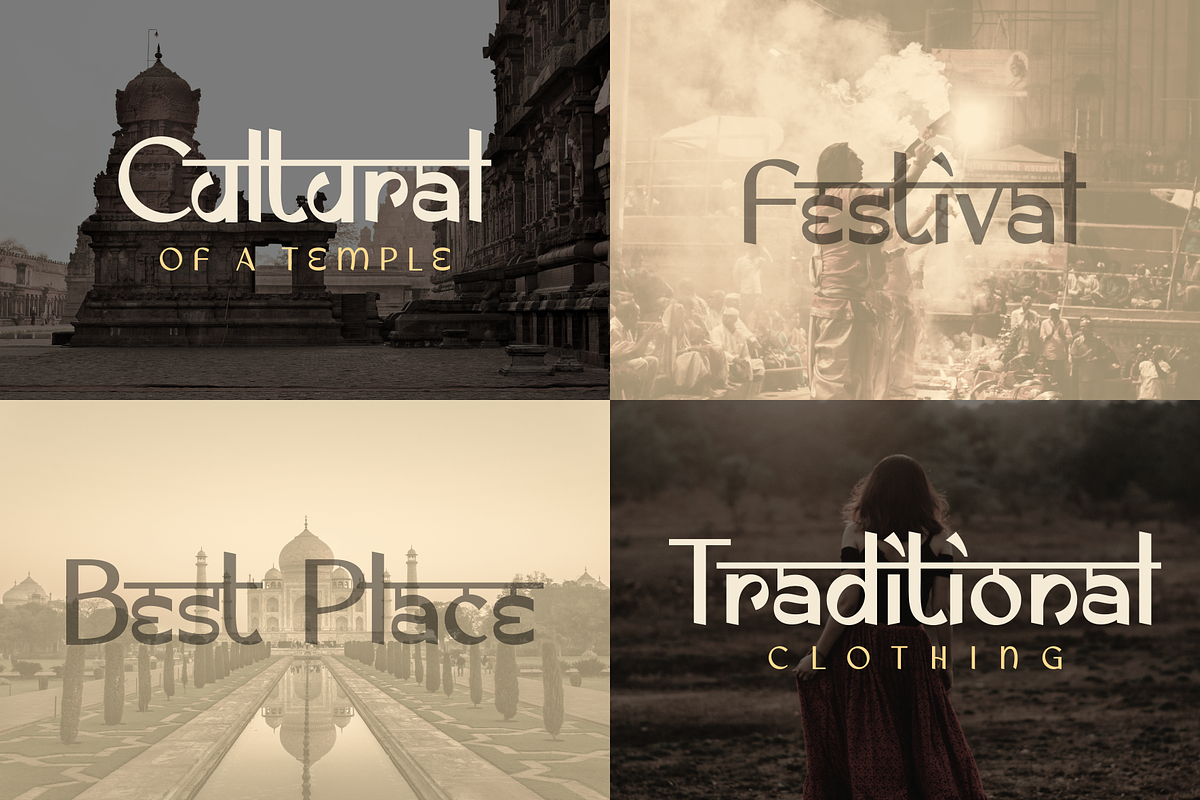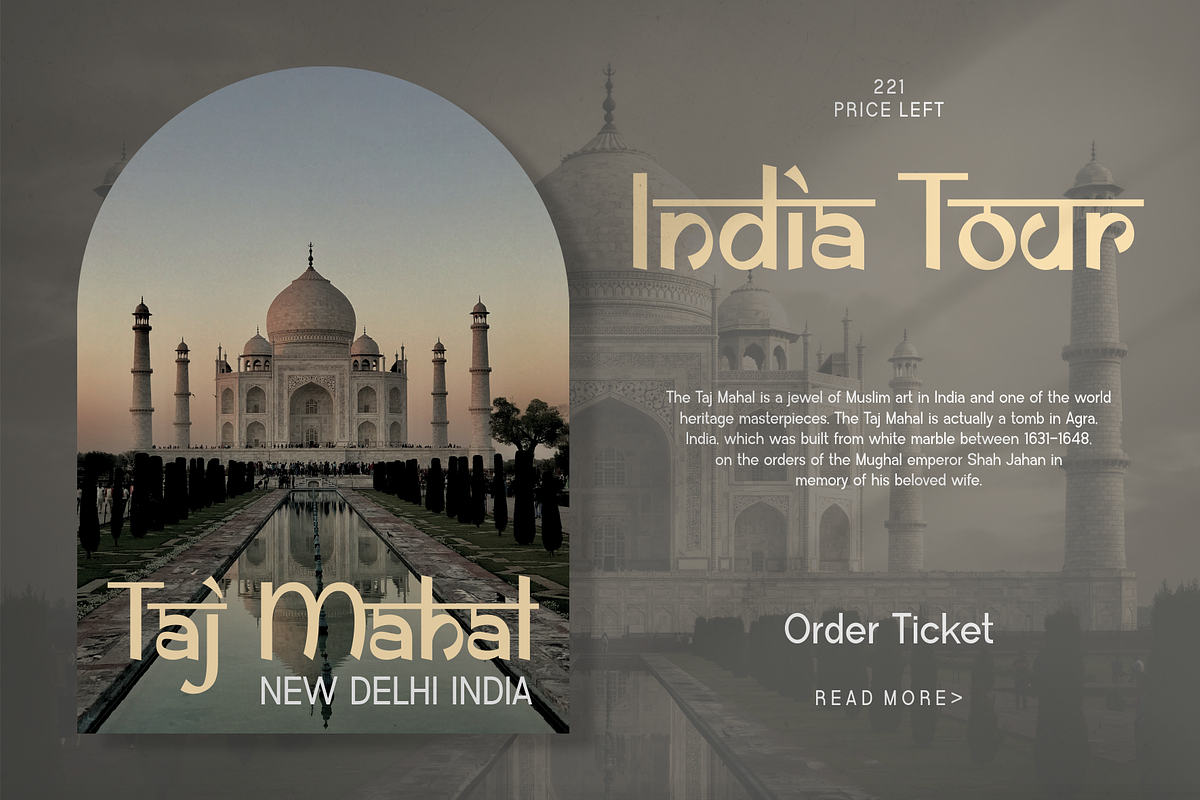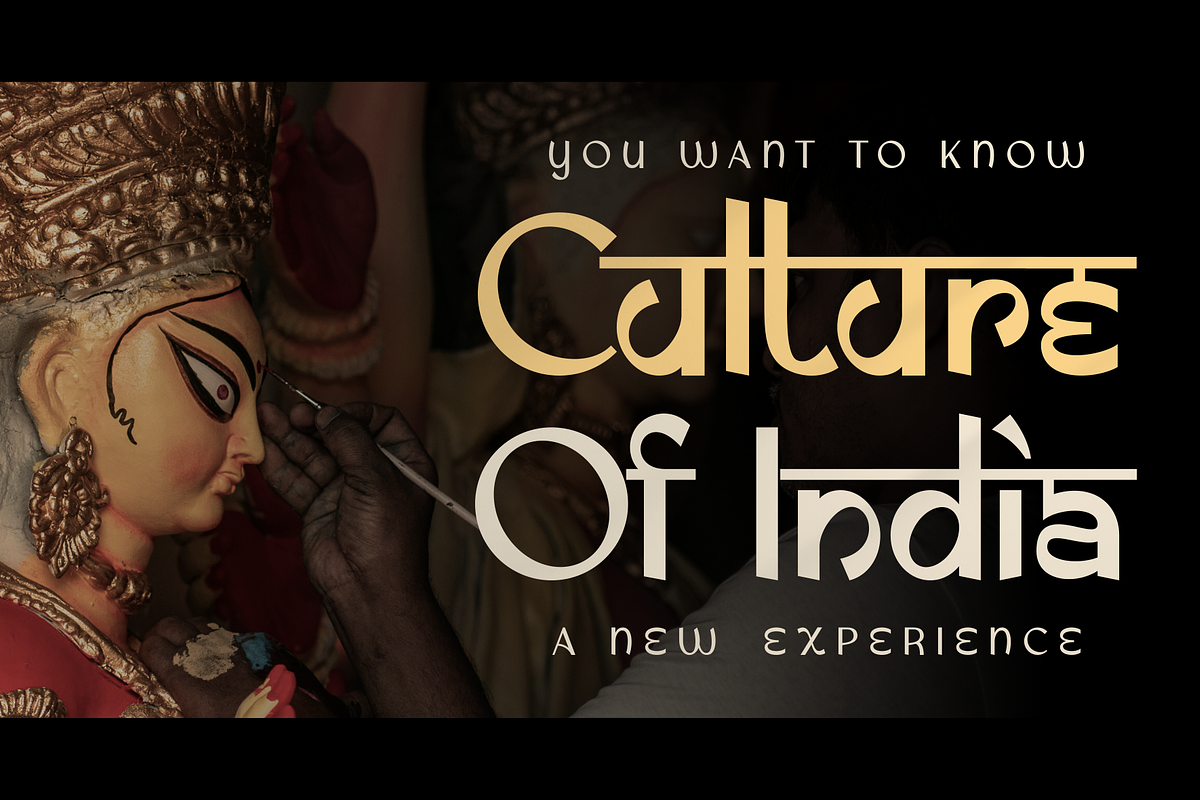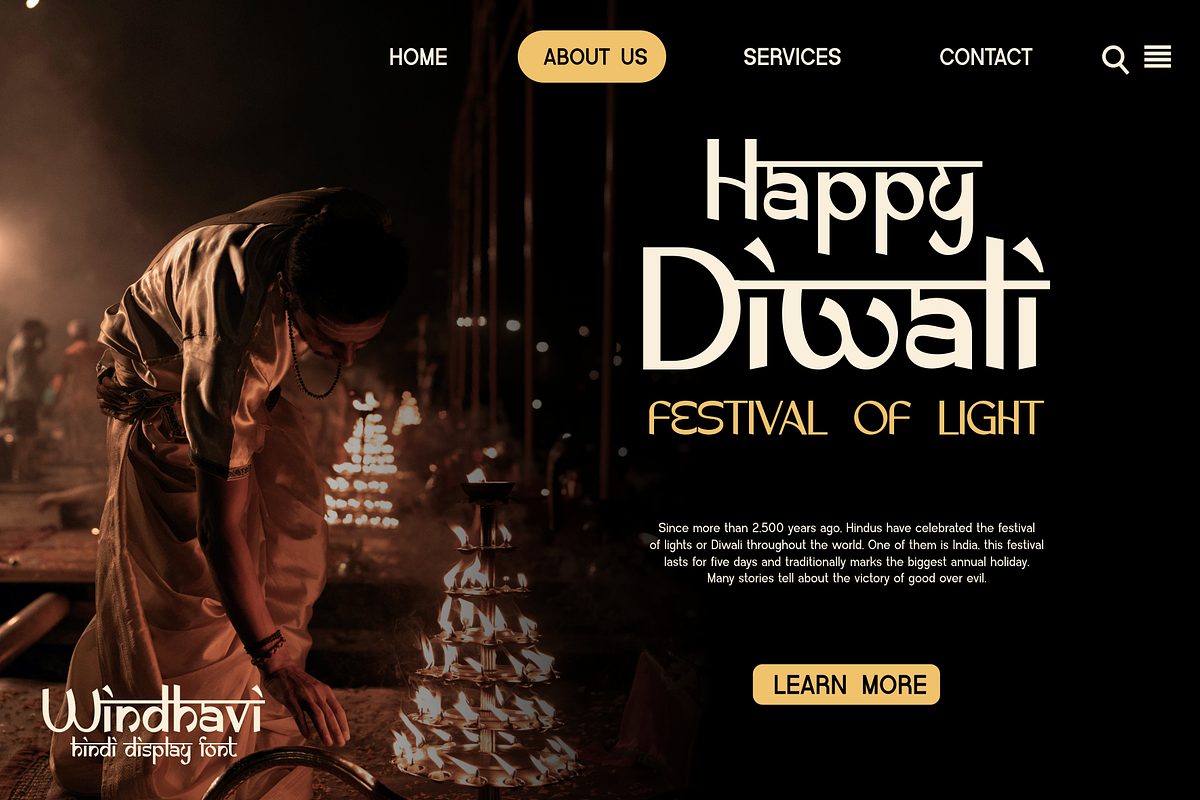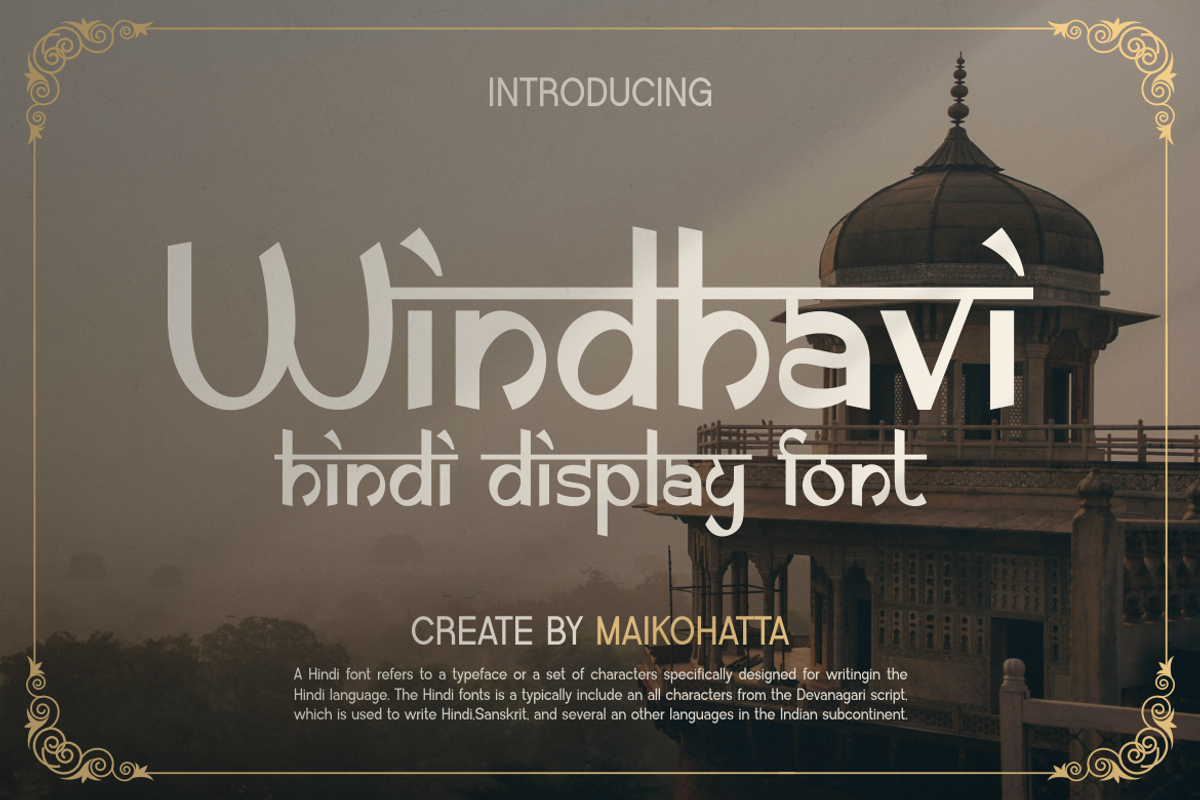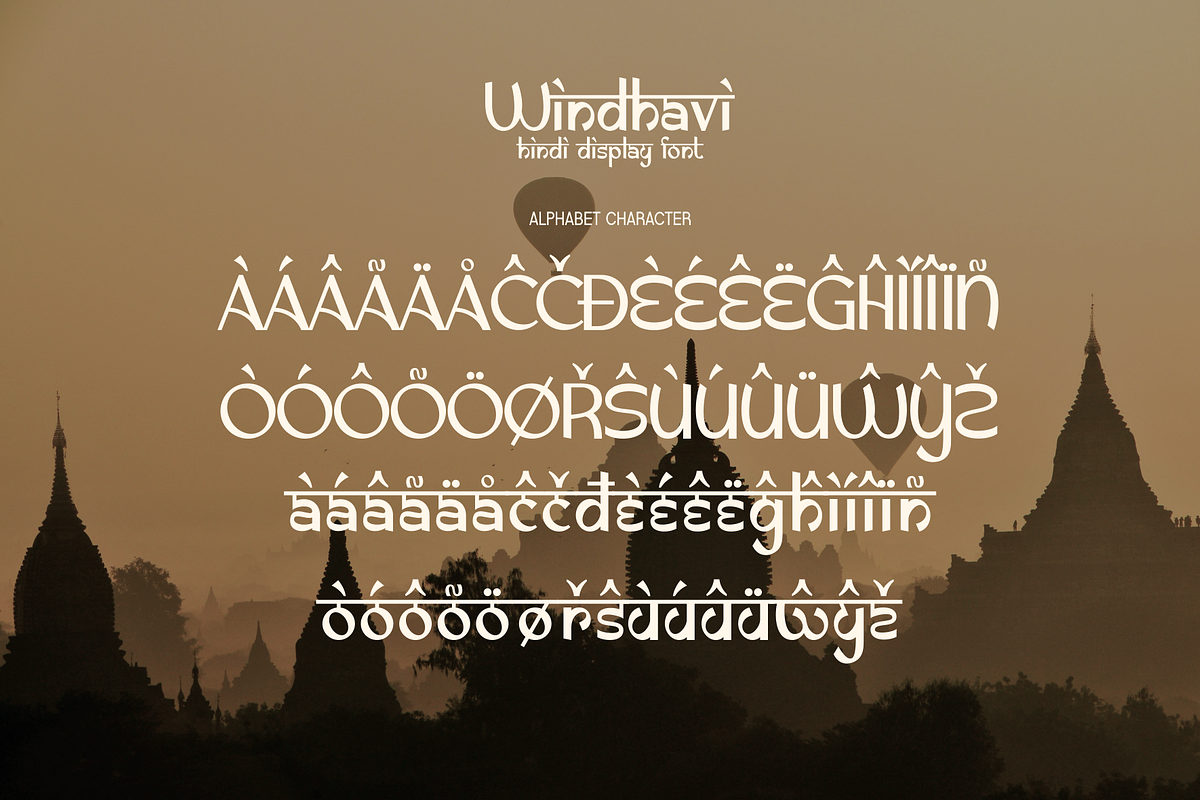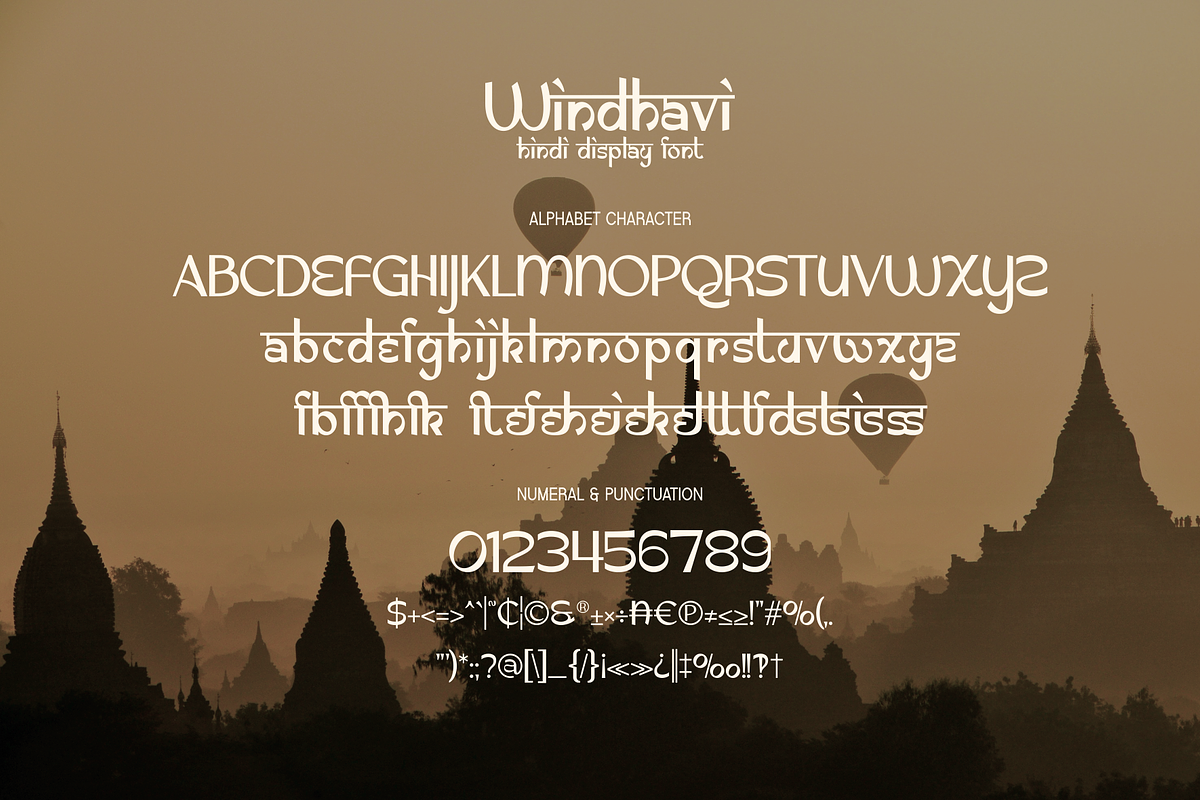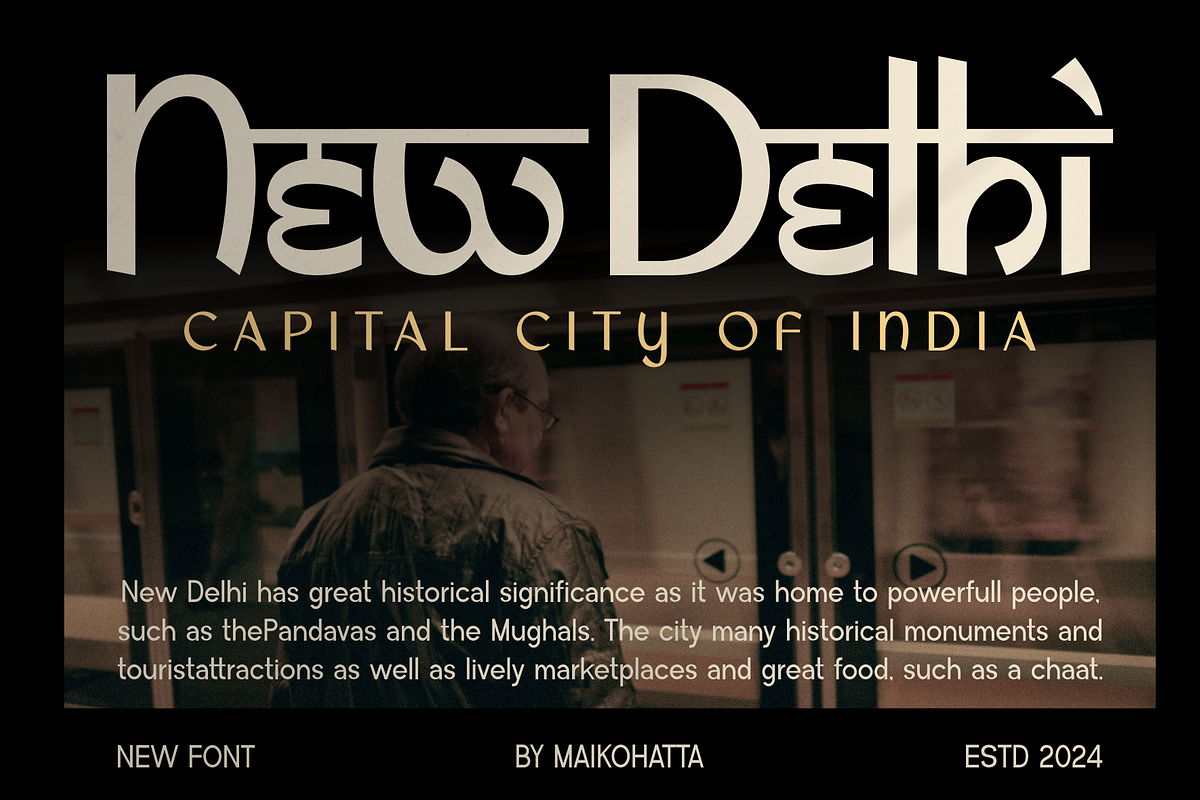
Windhavi - Hindi Display Font
Introducing our new product Windhavi - Hindi Display Font
Windhavi - Hindi Display Font is a bold and authentic display font. The font is suitable for any branding project like logo, Template Design, esport, and many more. outstanding in a wide range of contexts.